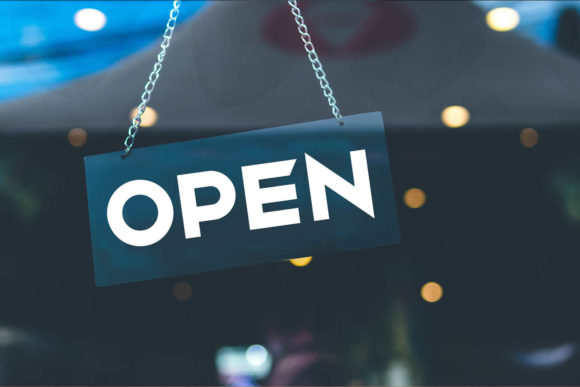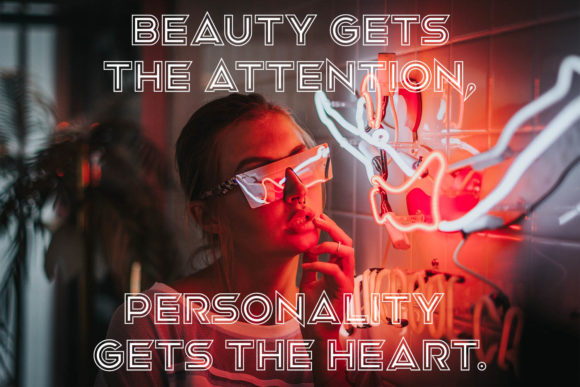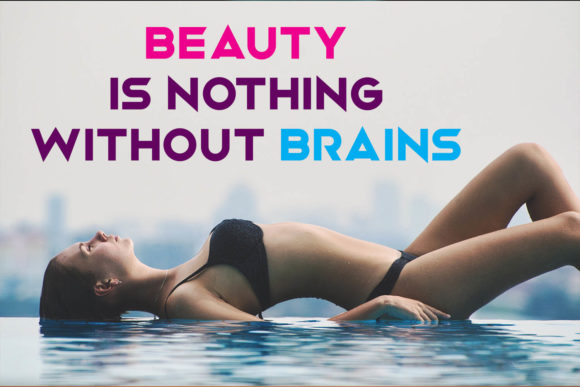
Introduction to Mismo Font Font
Fonts play a crucial role in design, and the Mismo Font font is a typeface that brings both character and versatility to any project. Whether you’re working on a branding project, a website, or a print design, the Mismo Font font offers a unique style that can elevate your work.
| 📌 Font Name | Mismo Font |
| 👤 Author | EyeCone |
Mismo is a clean sans serif typeface with charming appeal.
It is perfectly suited for a wide variety of projects .
Key Features of Mismo Font Font
Why Choose Mismo Font Font?
The Mismo Font font is more than just a typeface – it’s a design tool that helps you communicate your message with style and clarity. Its unique character set and versatile design make it suitable for a wide range of applications, from elegant invitations to bold headlines.
With its carefully crafted letterforms and balanced proportions, the Mismo Font font ensures readability and visual appeal across all mediums.
What makes Mismo Font font special?
The Mismo Font font stands out with its unique design, exceptional readability, and versatility across various design applications.